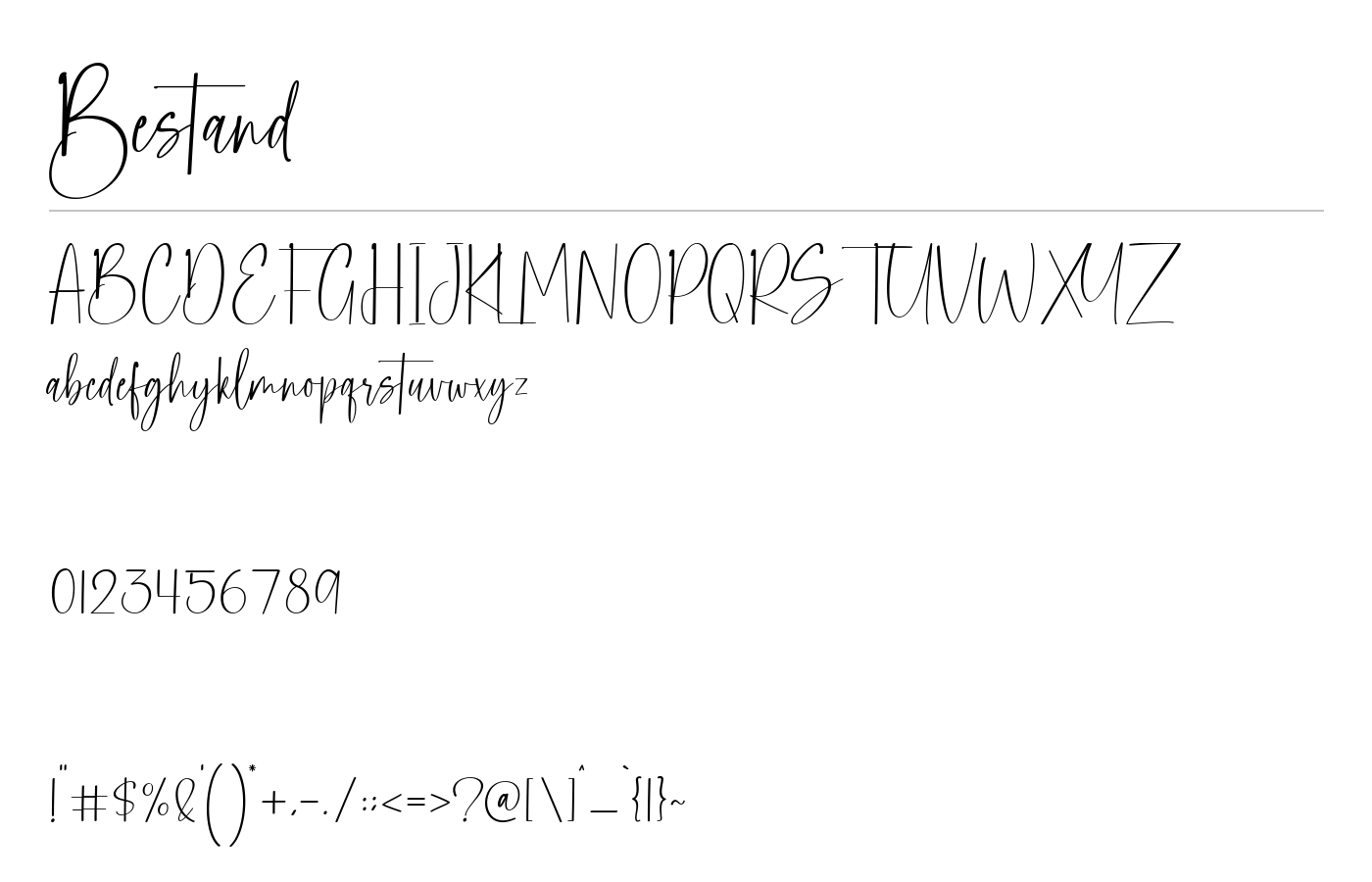
Bestand is a delicate, handwritten script font with tall, slender letterforms characterized by its thin strokes and elegant flow. Its mix of playful uppercase letters and graceful, flowing lowercase creates a charming, casual yet refined feel, making it perfect for personal branding, wedding invitations, and creative projects that seek a friendly, sophisticated touch. This font works beautifully in headlines and decorative uses where a light, airy, and intimate style is desired.
Bestand Font